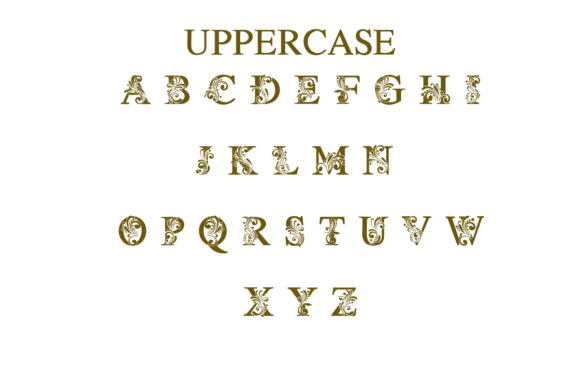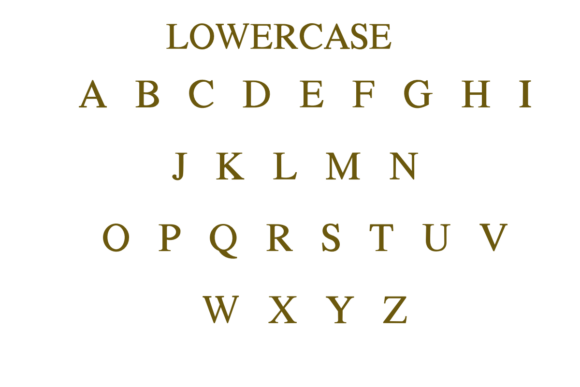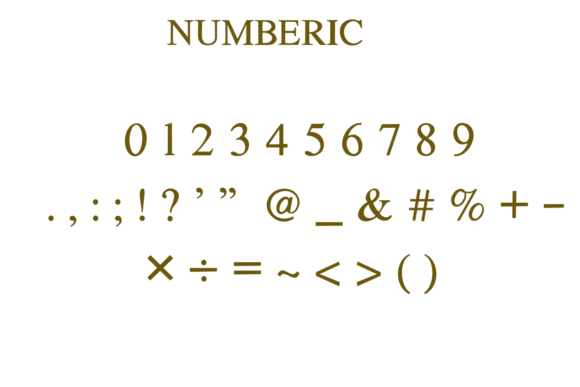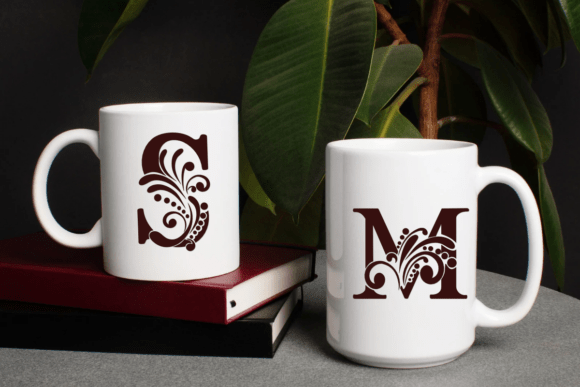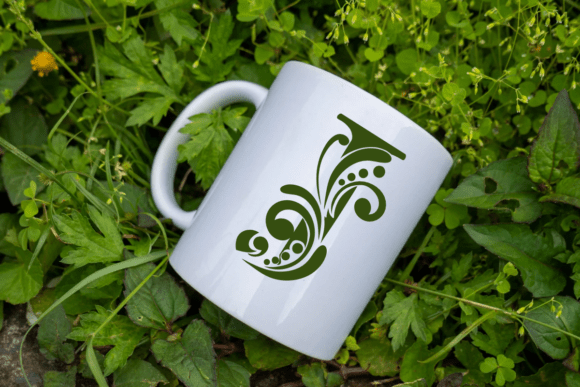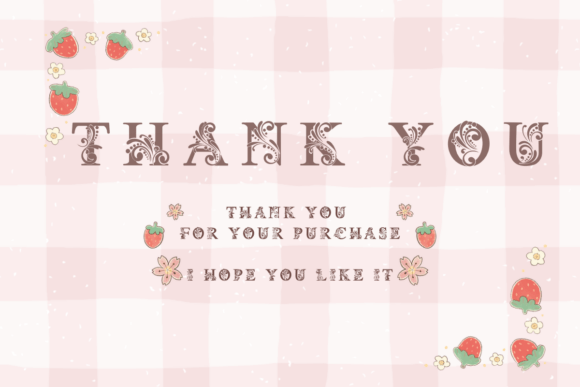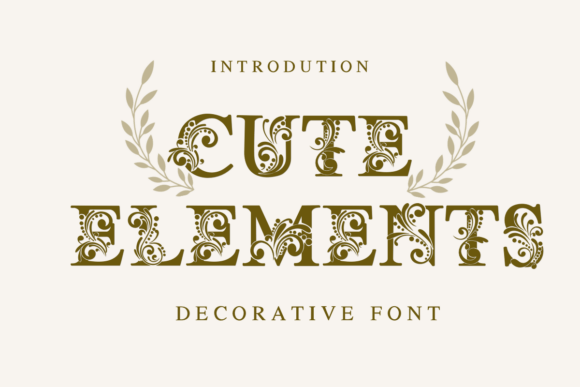
Cute Elements Font: Elevate Your Design with Exquisite Elegance
Are you a designer or crafter looking for a unique and sophisticated font to elevate your projects? Look no further than Cute Elements, a truly one-of-a-kind decorative font that embodies the perfect blend of elegance and intricate beauty. In this article, we’ll dive into the exquisite details of Cute Elements, exploring its features, uses, and benefits for designers and crafters.
A Masterpiece of Typography
Cute Elements is more than just a font – it’s a work of art. Each letterform is meticulously crafted to resemble an artistic canvas, filled with delicate swirls, vine-like patterns, and ornate floral motifs. The strong, condensed base structure of the letters ensures readability, while the detailed interior ornamentation adds a highly sophisticated, handcrafted aesthetic reminiscent of classic engravings or medieval illuminated manuscripts.
Luxurious and Customizable
Cute Elements is an exceptional choice for projects that demand a luxurious, custom, and highly ornate appearance. Its complex and intricate design makes it ideal for headlines and decorative text, where its beauty can be fully appreciated. Whether you’re working on wedding stationery, sophisticated branding for artisanal goods, elegant certificates, historical or fantasy book titles, personalized monograms, or packaging for gourmet or handcrafted items, Cute Elements is the perfect fit.
As a designer or crafter, you understand the importance of typography in creating visually stunning projects. Cute Elements offers a unique opportunity to transform your typography into a piece of art. With its highly ornate and customizable design, you can add a touch of elegance and sophistication to any project. Whether you’re creating digital or print materials, Cute Elements is sure to impress.
Key Features of Cute Elements
- Intricate design: Delicate swirls, vine-like patterns, and ornate floral motifs create a truly unique and sophisticated aesthetic.
- Readability: The strong, condensed base structure of the letters ensures readability, even at smaller sizes.
- Customizable: Cute Elements is perfect for projects that demand a luxurious, custom, and highly ornate appearance.
- Versatile: Suitable for a wide range of projects, including wedding stationery, branding, certificates, book titles, monograms, and packaging.
Tips for Using Cute Elements
To get the most out of Cute Elements, consider the following tips:
- Use it sparingly: Due to its intricate design, Cute Elements is best used sparingly, such as in headlines or titles.
- Pair with simple fonts: Pair Cute Elements with simpler fonts to create visual contrast and ensure readability.
- Experiment with colors: Cute Elements looks stunning in a range of colors, from metallic gold and silver to rich jewel tones.
Cute Elements is a truly unique and exquisite decorative font that offers designers and crafters a luxurious and customizable solution for their typography needs. With its intricate design, readability, and versatility, Cute Elements is perfect for a wide range of projects. Whether you’re looking to add a touch of elegance to your wedding stationery or create a sophisticated brand identity, Cute Elements is sure to impress. Transform your typography into a piece of art with Cute Elements – a font that will elevate your design to new heights.